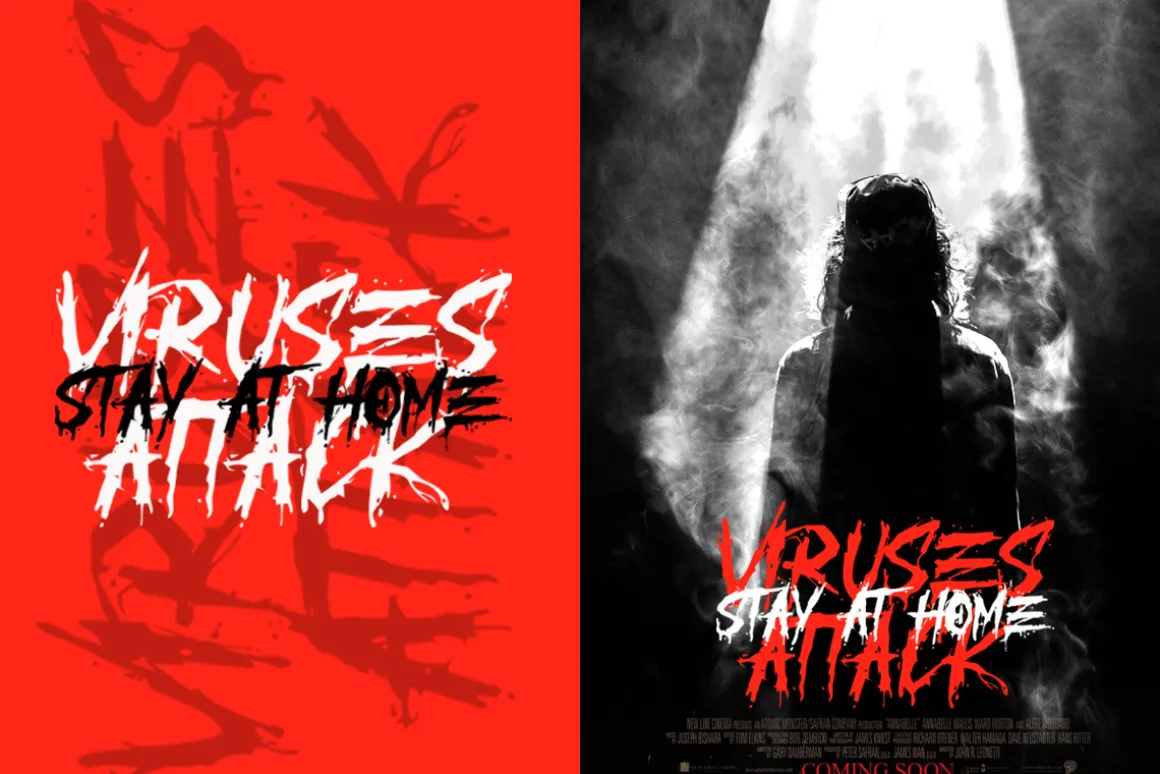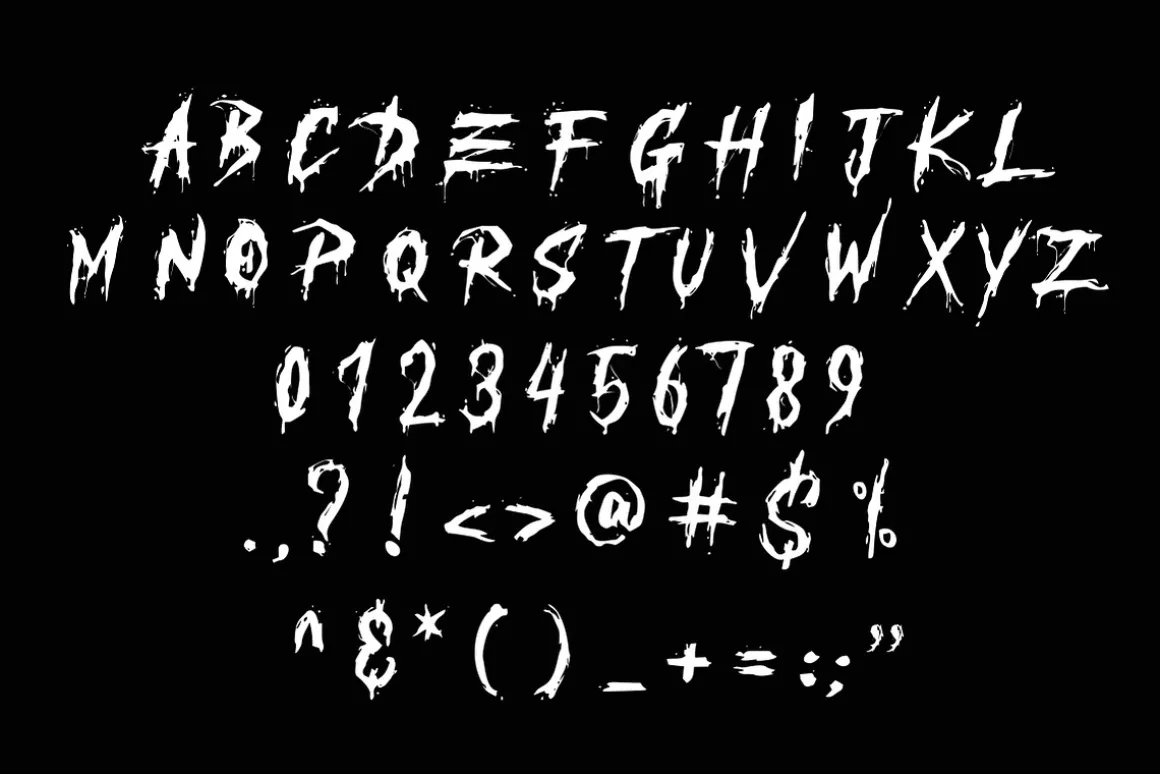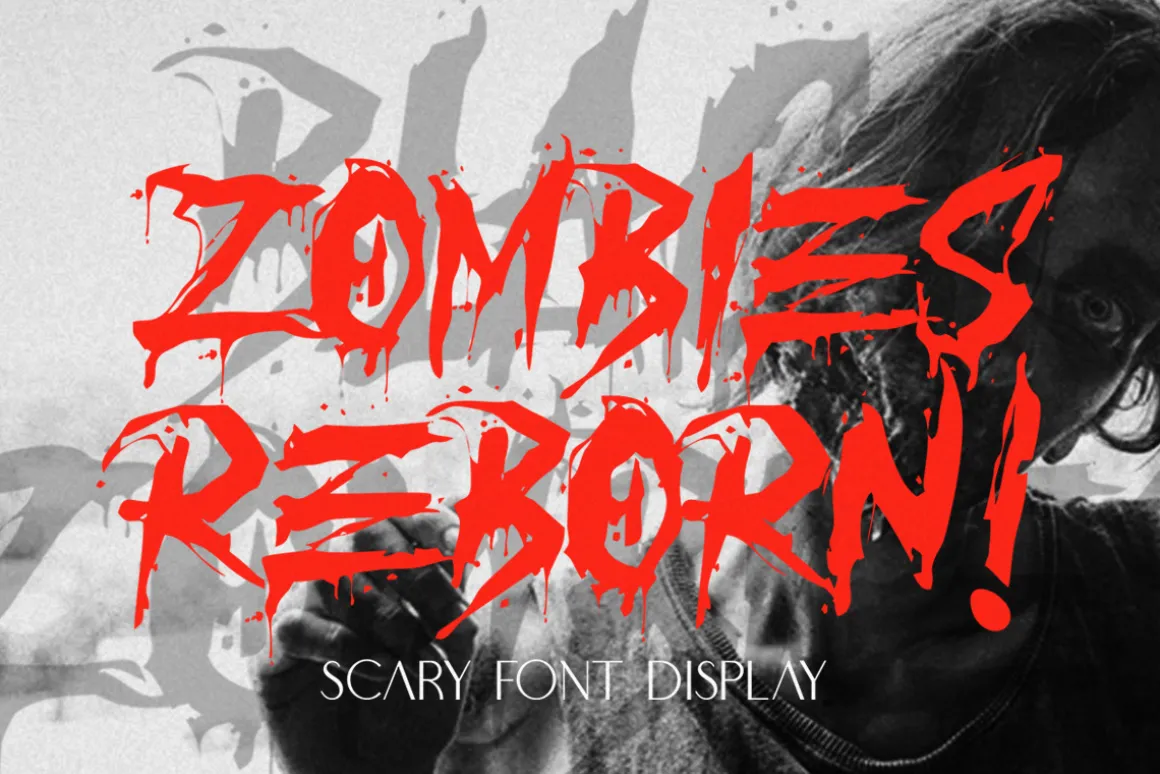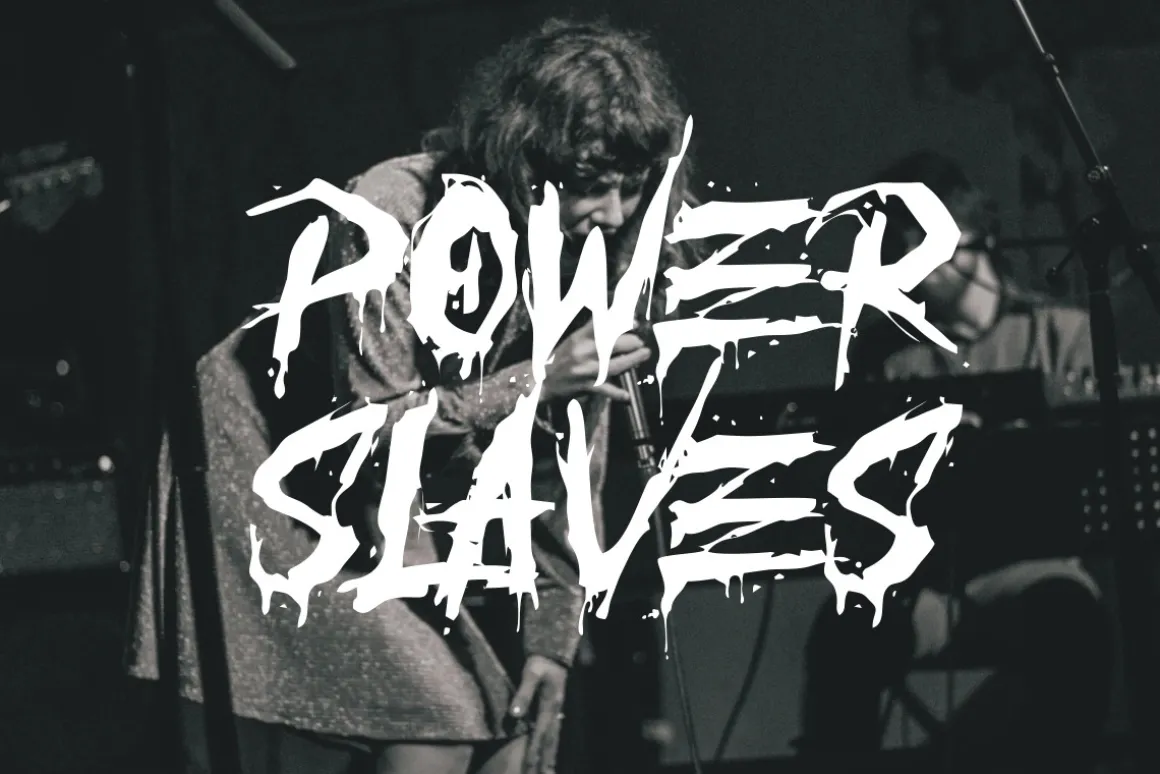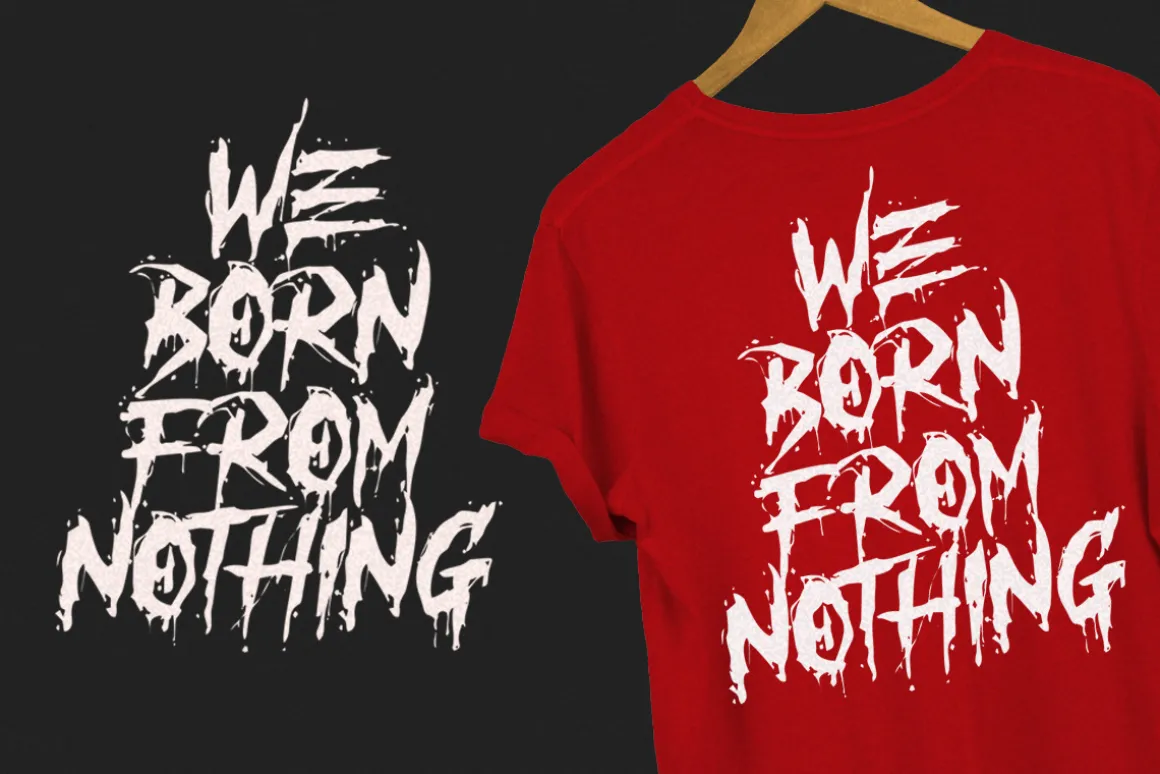
INTRODUCING REBORN ZOMBIES scary font display is a impresive style,REBORN ZOMBIES font bursting with horor soul, REBORN ZOMBIES is ideal for title horor movie,apparel,T-shirt,Hoodie, quotes, product packaging, or anything do you wantWhat’s Included: